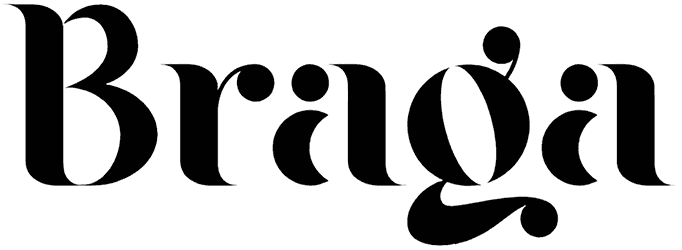
Braga Font
Braga resembles old western-style fonts with stylized serifs mixed with a modern style. This fancy font reminds the good old days and brings a kind of nostalgia that many other fonts cannot portray.
The letters show visual images and the geometric combination of points and curves that naturally convey intimacy, creativity, and talent. So if you are looking for a different serif font to design your posters, advertisements, and packaging, you are close to upgrading to the next level.